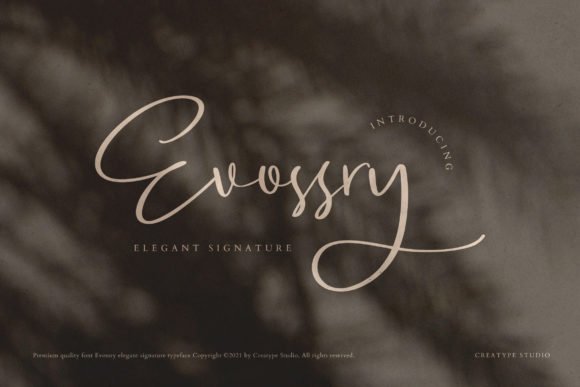
Introduction to Evossry Font
Evossry is an elegant signature script font.
It has been carefully designed for natural texts such as branding projects, logos, wedding designs, social media posts, and any projects that need handwriting taste .
Key Features of Evossry Font